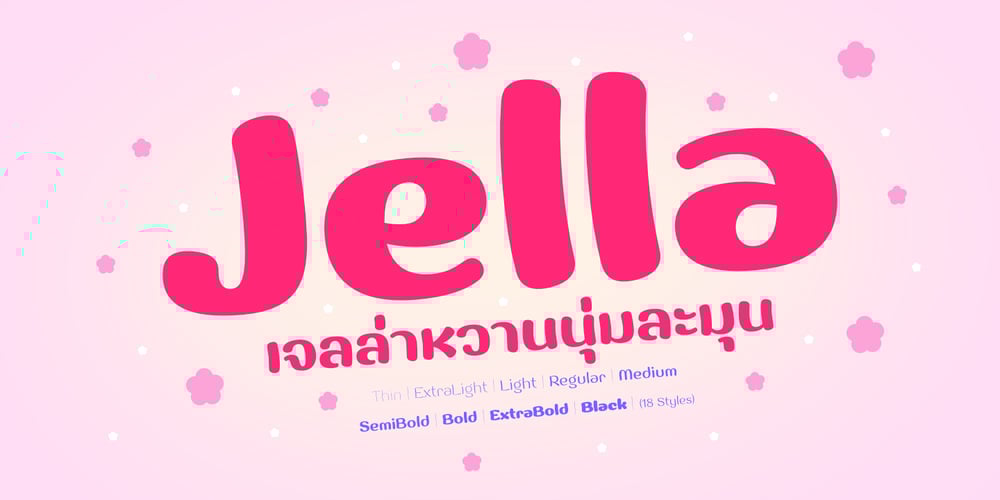
Jella
Jella font
Jella Font Family was designed by Anupap Jaichumnan and published by Jipatype. Jella contains 18 styles and family package options. Jella is a charming and adorable font typeface designed to add a touch of sweetness and playfulness to any project. With a total of 18 styles to choose from, this versatile typeface offers a wide range of options to suit various design needs.